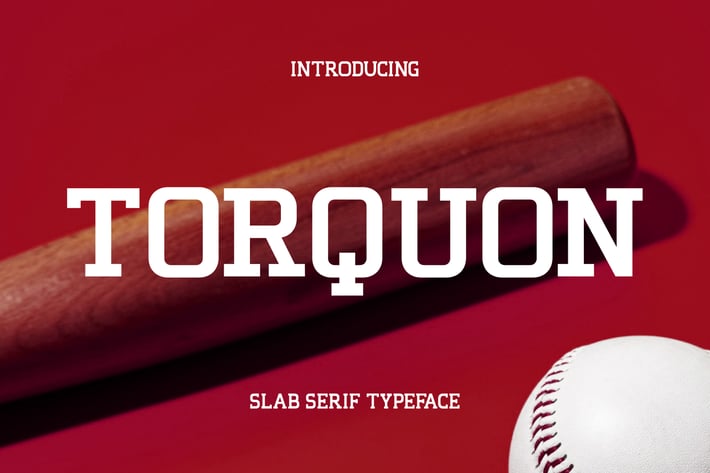
Torquon Serif Font
Torquon is a confident slab serif font designed for maximum visual punch. Inspired by classic baseball branding and bold stadium typography, Torquon blends retro athletic energy with modern clarity. Its squared serifs and sturdy build give it a sharp, structured look—perfect for high-impact headlines, sports branding, and merchandise. Whether you’re designing for the field, the arena, or the street, Torquon delivers timeless strength and a competitive spirit.
Torquon Suitable forteam logos, matchday posters, gym branding, player cards, vintage sports ads and typographic quotes. Its tone fits baseball, football, boxing, or urban fitness themes—anything where boldness and determination meet design.